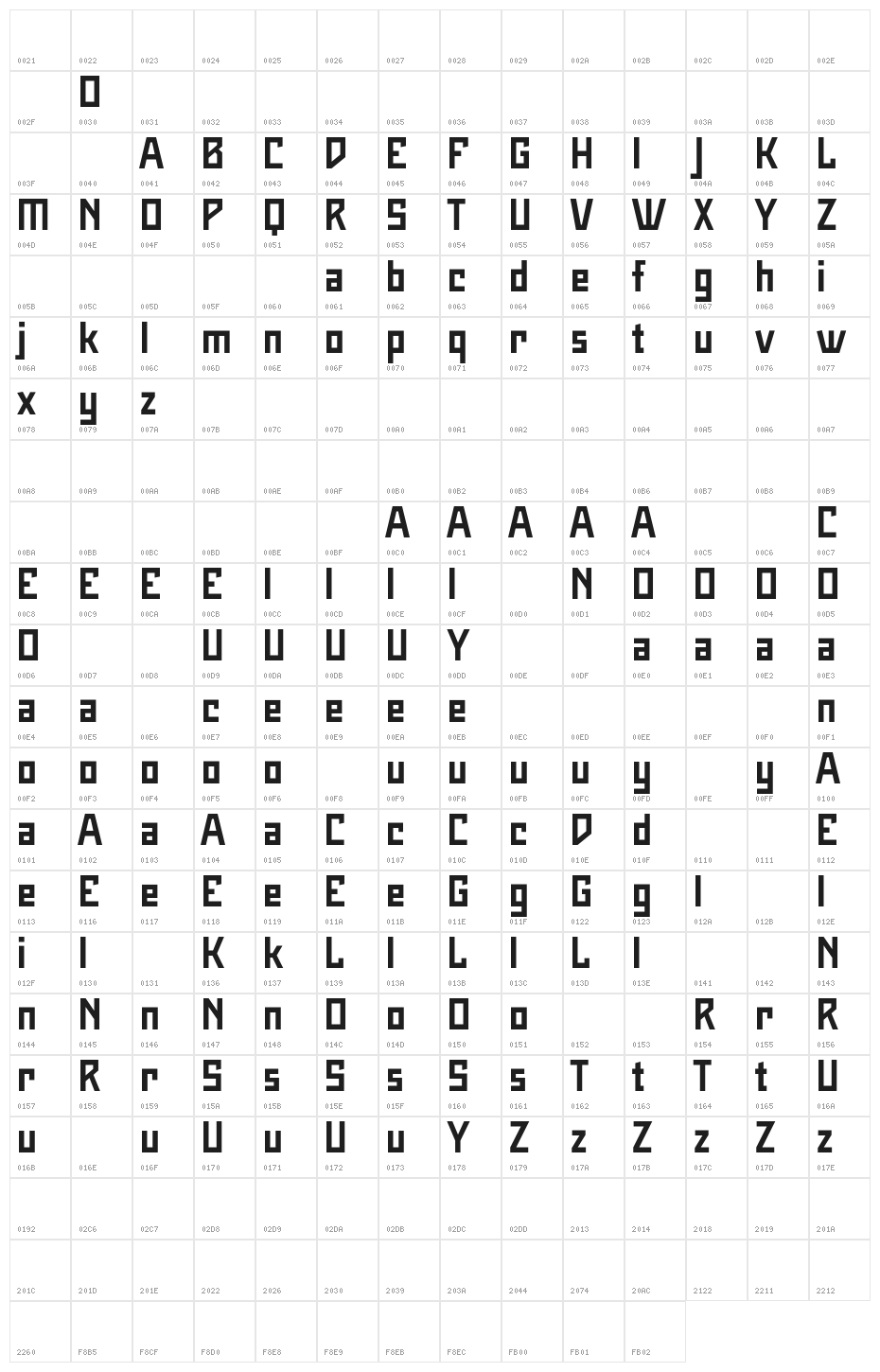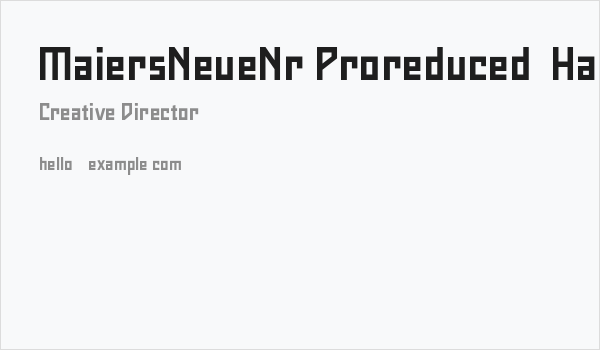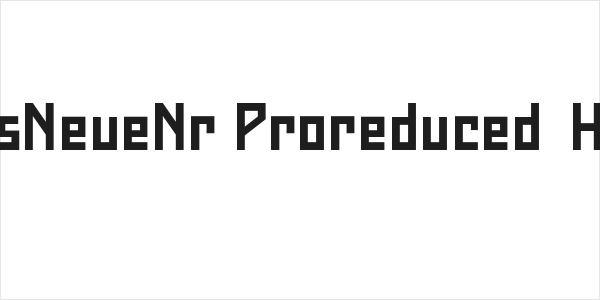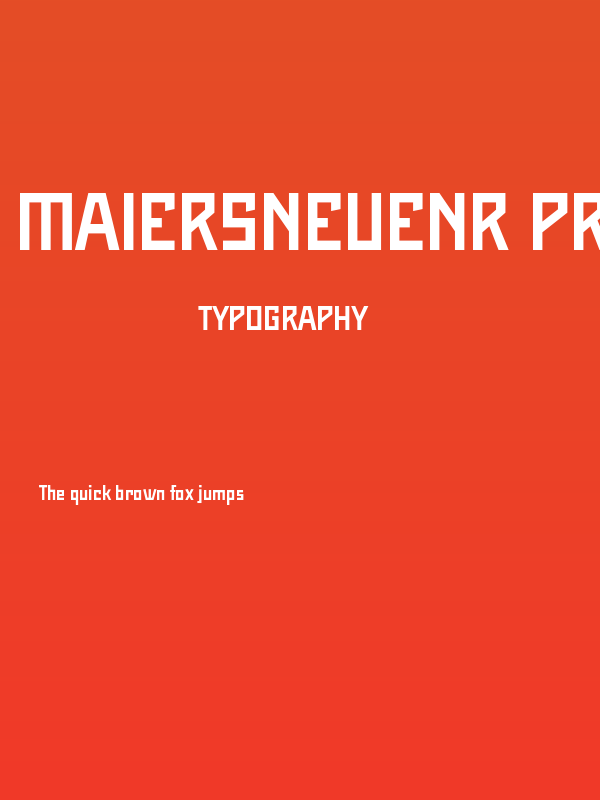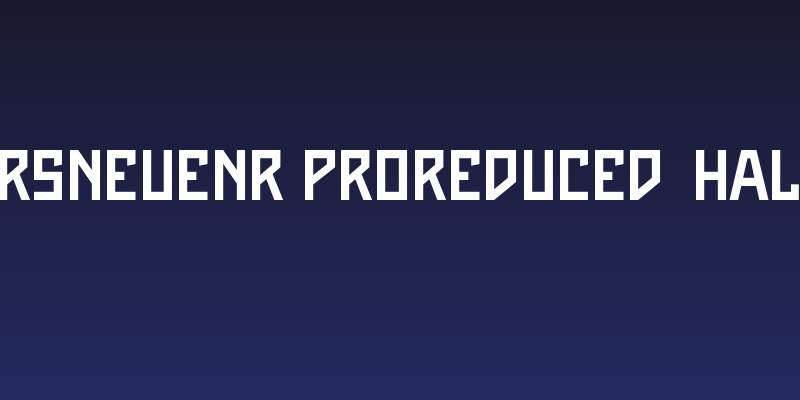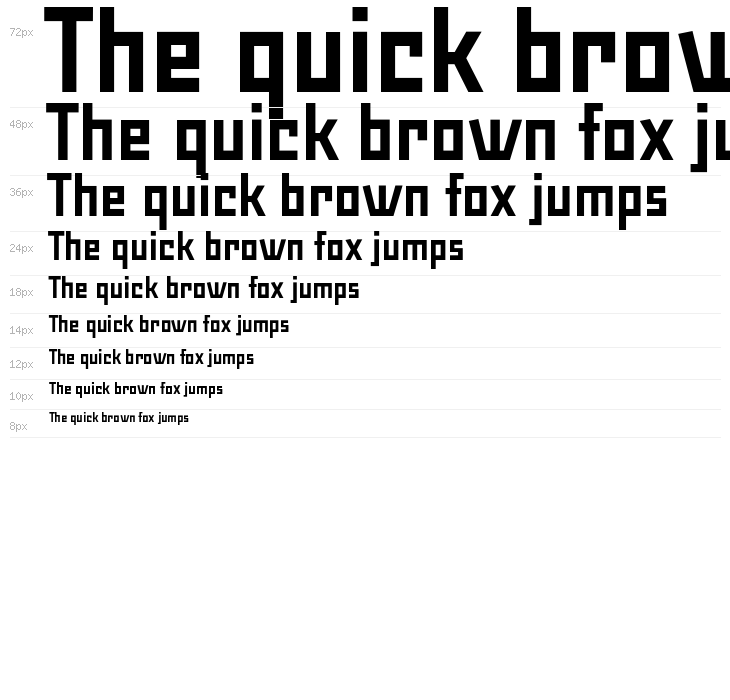
MaiersNeueNr.Proreduced-Halbfet Font
MaiersNeueNr.Proreduced-Halbfet Description
This font features a bold, geometric design with a strong, modern aesthetic. The characters are constructed with straight lines and sharp angles, giving it a futuristic and industrial feel. The uppercase letters are uniform in height, while the lowercase letters maintain a consistent baseline, enhancing readability. The font's structure is rigid, with each character exhibiting a block-like appearance. The numerals are equally robust, matching the style of the alphabet. This font is ideal for projects that require a contemporary and assertive look.